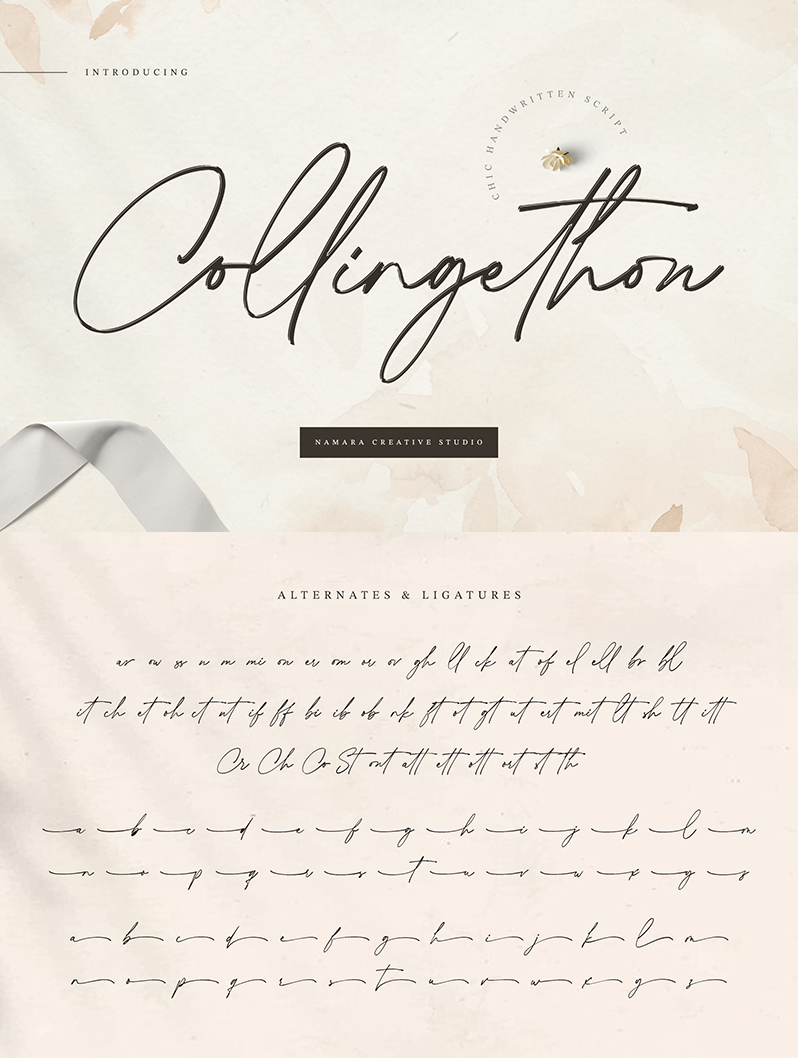
Font name: | Collingethon |
Author: | Namara Creative Studio |
Note by Namara Creative Studio | |
Chic handwritten script font with a calligraphy flair, Perfect for creating handwritten-style logos, wedding stationery, photographer watermarks and more. By installing or using this font, you are agree to the Product Usage Agreement: - This font is PERSONAL USE ONLY. NO COMMERCIAL USE ALLOWED! - Link to purchase commercial license https://onedsgn.com/product/collingethon-script/ |